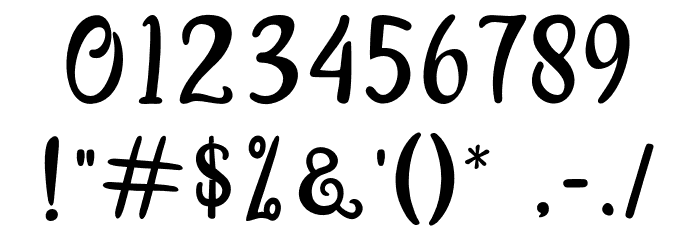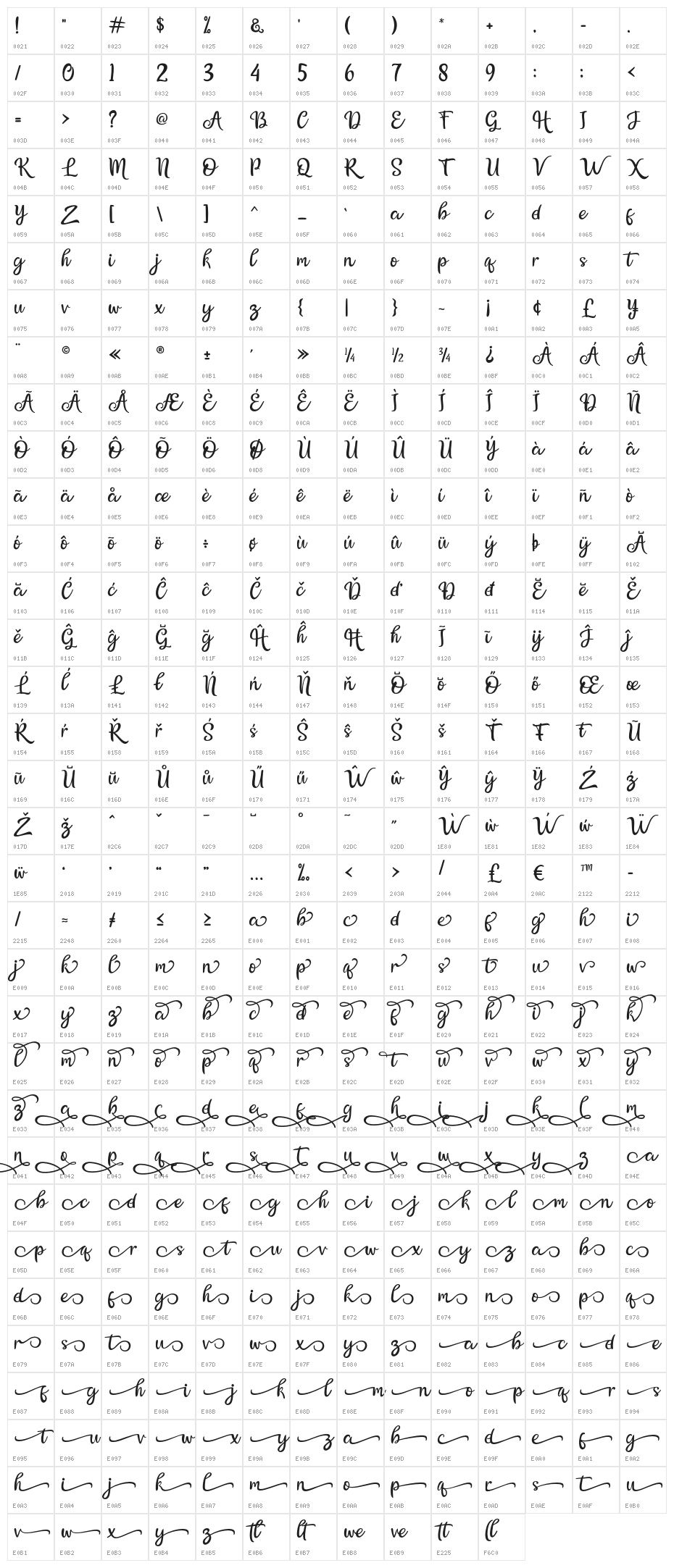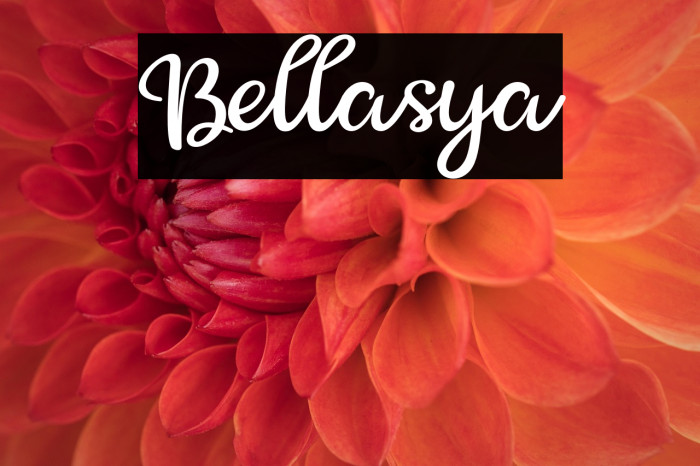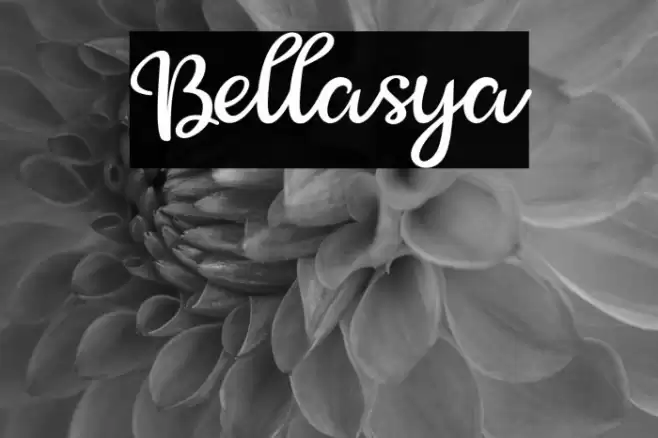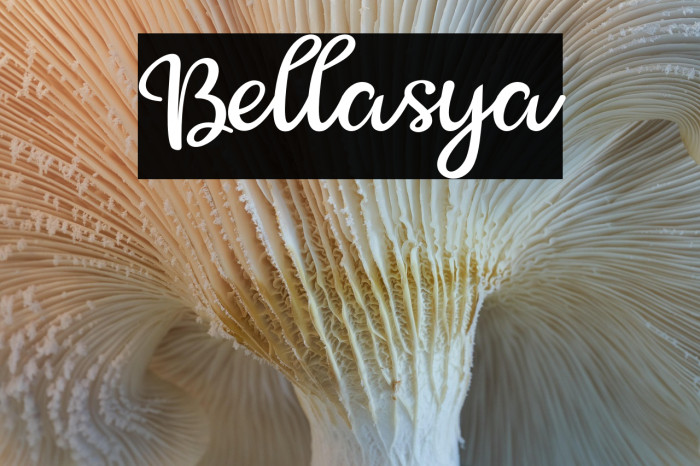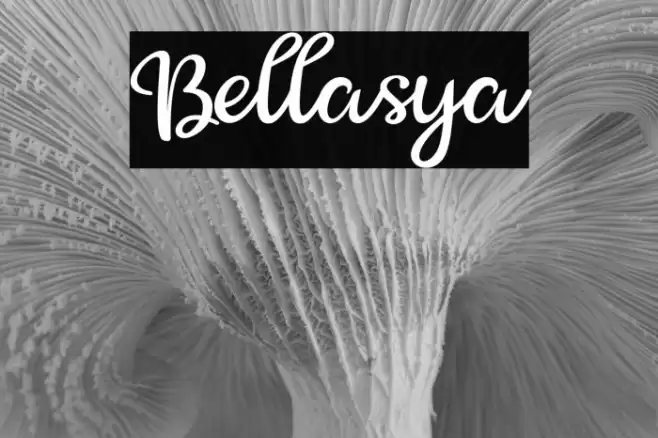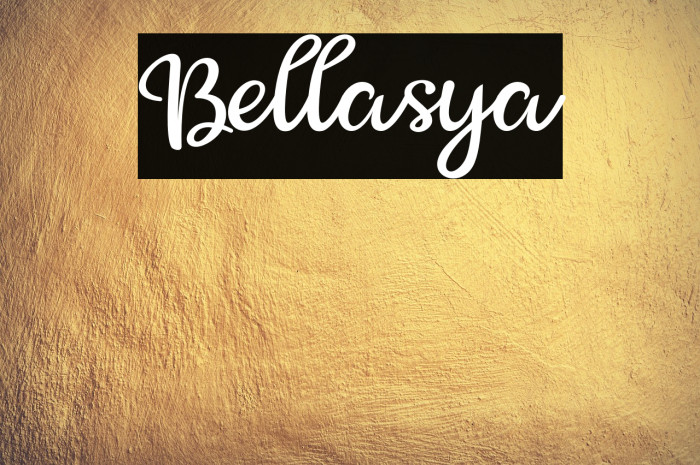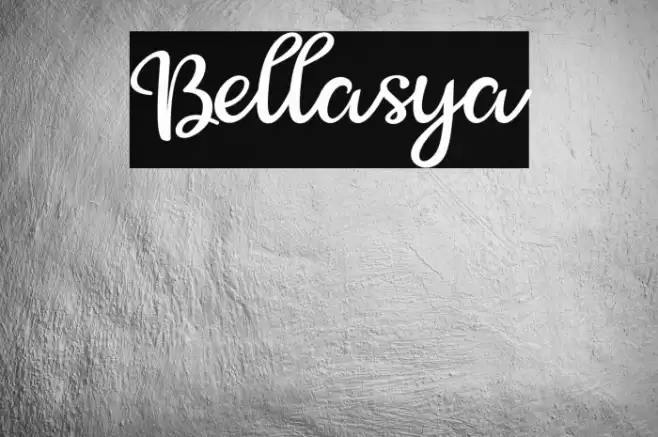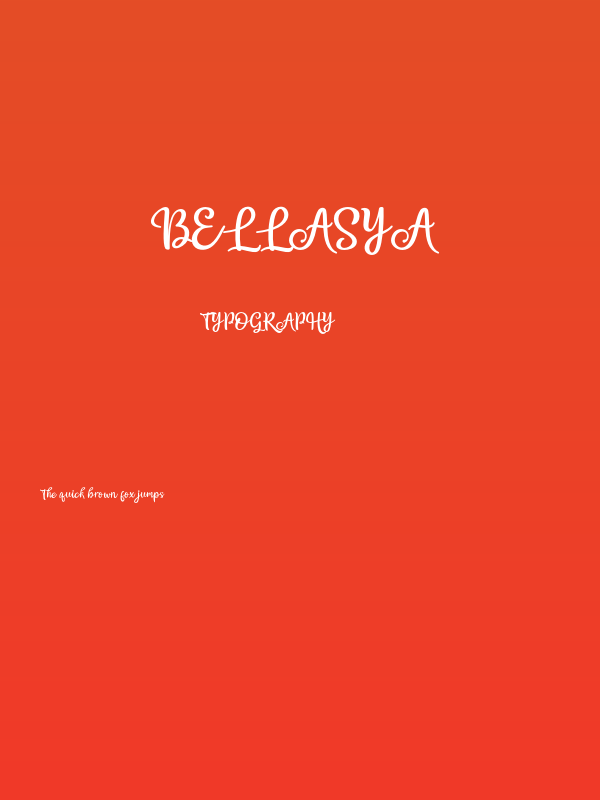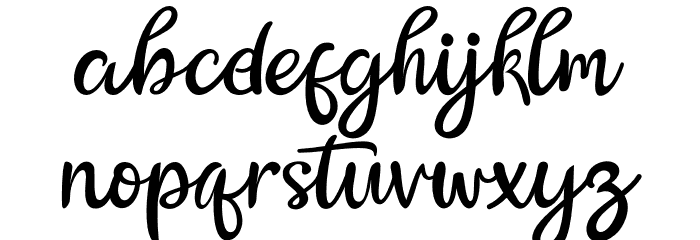
Bellasya Font
Bellasya Description
This font exudes a playful and whimsical charm, characterized by its flowing, cursive style. The letters are interconnected with smooth, rounded strokes, giving it a handwritten appearance. The uppercase letters are bold and prominent, while the lowercase letters maintain a consistent flow with elegant loops and curves. The numerals are equally stylized, maintaining the playful essence of the font. Special characters are creatively designed, adding to the overall aesthetic appeal. This font is perfect for projects that require a personal touch, such as invitations, greeting cards, or branding materials that aim to convey warmth and creativity.
| Proposed Projects | Ideal for invitations, greeting cards, personal branding, and creative projects. |